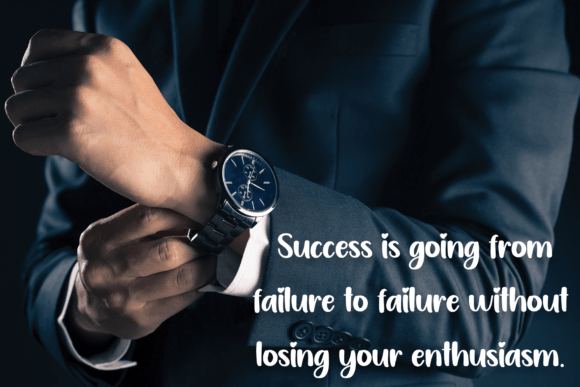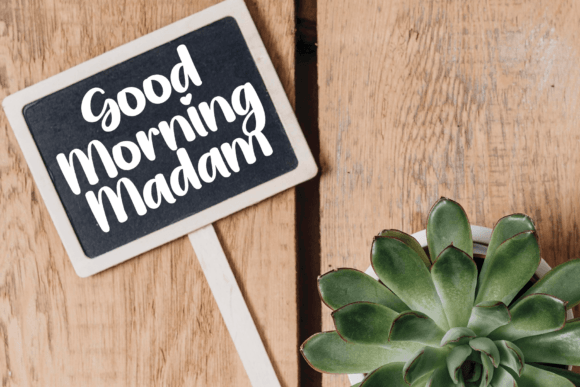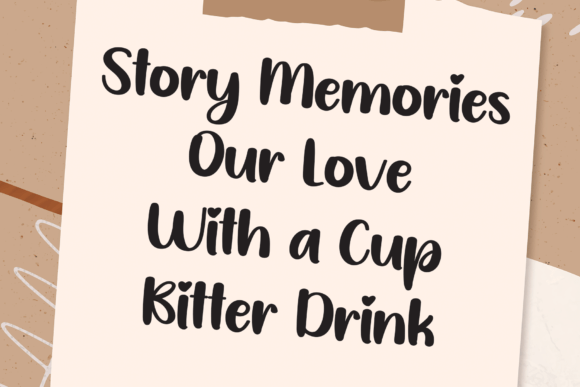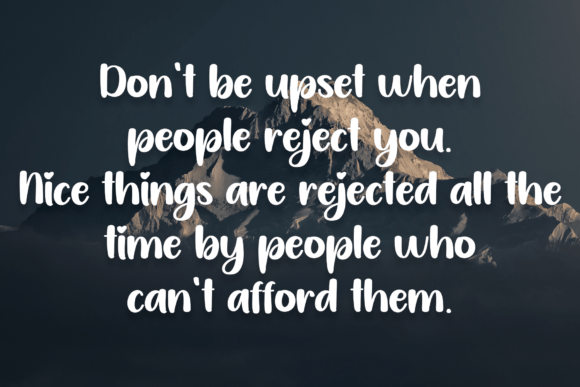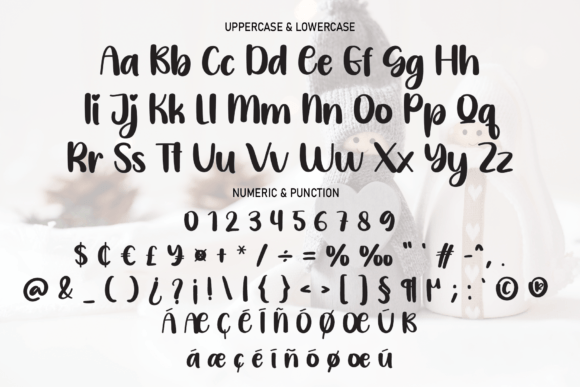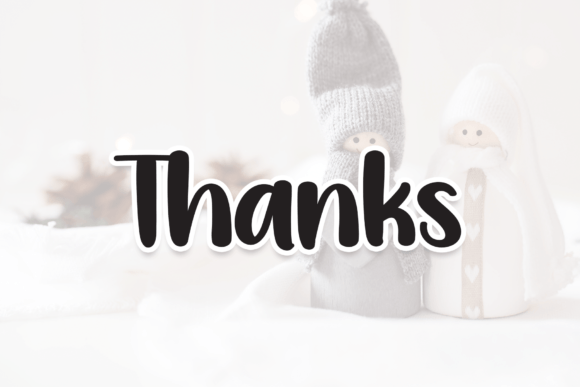
Babydoll Font
About Babydoll Font
Babydoll is a cheerful and handwritten font designed to infuse a sense of happiness and fun into your designs. With its lively and playful style, this font is perfect for a variety of applications including branding, packaging, logotypes, headlines, wedding invitations, and more. Embrace the joyful spirit of Babydoll to add a delightful touch to your creative projects.
The happy and handwritten style of Babydoll brings a warm and personal feel to your text. Its whimsical and carefree design makes it particularly suitable for projects that aim to convey a sense of joy and playfulness.
In branding, Babydoll can contribute to creating a friendly and approachable visual identity. The font’s happy demeanor adds a touch of personality, making it suitable for brands that want to evoke positive emotions and connect with their audience on a personal level.
For packaging, Babydoll’s lively and fun vibe can enhance the overall appeal of product labels and tags. Its handwritten charm adds a handmade and authentic touch, making the packaging stand out on the shelves.
Logotypes designed with Babydoll can benefit from its playful and friendly style. The font’s happy handwritten letters create a memorable and distinctive logo, perfect for businesses that want to leave a positive and lasting impression.
In headlines, Babydoll can bring a burst of energy and excitement. Whether used in digital or print media, the font’s happy and fun mood makes it suitable for catching the audience’s attention and conveying a lighthearted message.
For wedding invitations, Babydoll can set the tone for a joyous and celebratory event. Its cheerful and handwritten appearance adds a personal and festive touch to invitation designs, creating a sense of anticipation and happiness.
In summary, Babydoll is more than just a font; it’s a design tool crafted to bring happiness and fun to your creative projects. Whether applied to branding, packaging, logotypes, headlines, or wedding invitations, Babydoll’s lively and handwritten style makes it a perfect choice for creating designs that radiate joy and positivity.